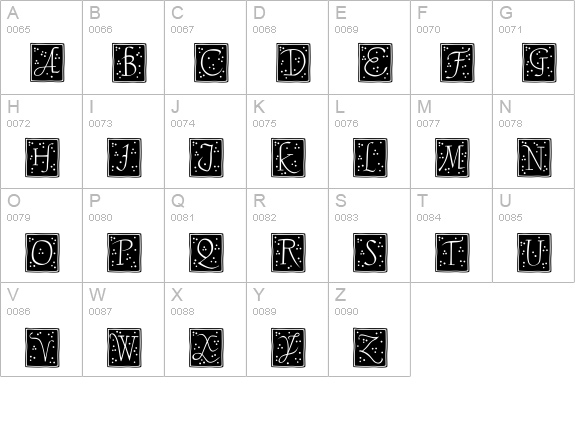
TaglienteInitials Font Details
TaglienteInitials is a captivating and elegant font that exudes a sense of sophistication and timeless beauty. With its intricate and ornate design, this font is perfect for adding a touch of elegance to any project or design. The letters in TaglienteInitials are meticulously crafted, with delicate curves and intricate details that make each character a work of art. The font features a combination of bold and thin lines, creating a harmonious balance that is both eye-catching and visually pleasing. Whether you're working on a wedding invitation, a logo design, or a book cover, TaglienteInitials is sure to make a lasting impression. Its classic and refined style adds a touch of luxury and exclusivity to any project, instantly elevating it to a whole new level. One of the best things about TaglienteInitials is that it is completely free. Yes, you heard that right. This stunning font is freely available to download at FontsMarket.com. So, you can add a touch of elegance to your designs without having to worry about breaking the bank. Don't miss out on the opportunity to enhance your projects with the timeless beauty of TaglienteInitials. Download it for free at FontsMarket.com and let your creativity soar.